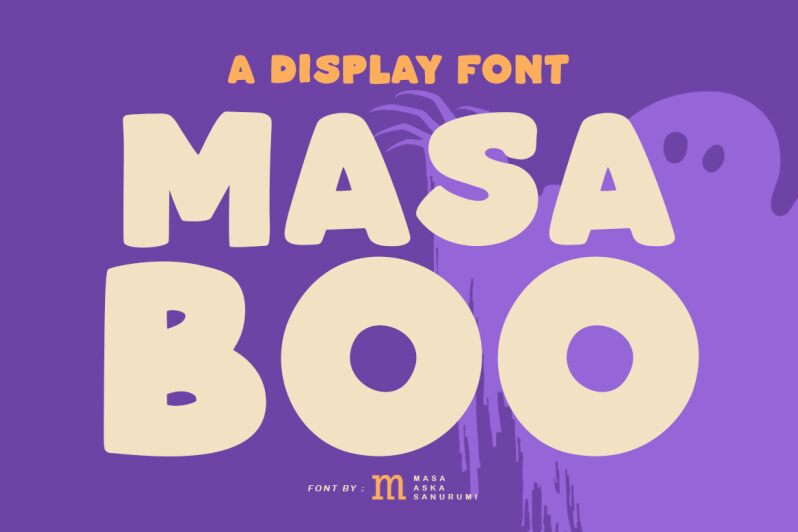
Step into the whimsical world of Masa Boo, a font that encapsulates the playful spirit of cartoons with its extra-bold, semi-expanded characters. Crafted by the imaginative Masa Aska Sanurumi, this display font bursts onto the scene with a presence that's both commanding and delightfully approachable. Its rounded contours and buoyant baseline invite creativity to flourish across an array of projects, from eye-catching logos to vibrant children's book titles.
Masa Boo is more than just type; it's a storyteller, setting the stage for fun and engaging narratives in graphic design. Its affable appeal makes it an instant favorite for packaging design, animated web content, and any endeavor that begs for a touch of joy. Embrace its unique flair to infuse your creative works with personality and heart-Masa Boo is waiting to bring your ideas to life!